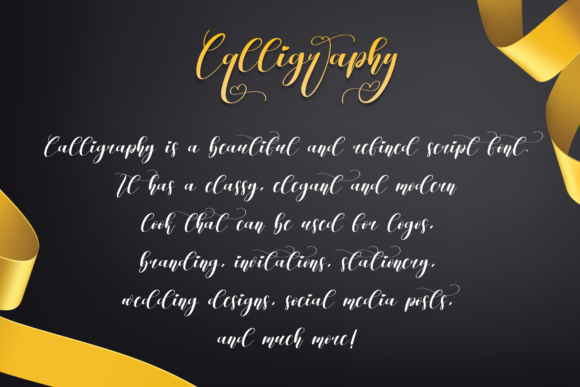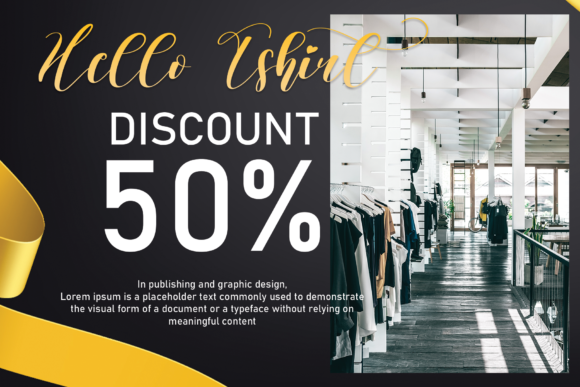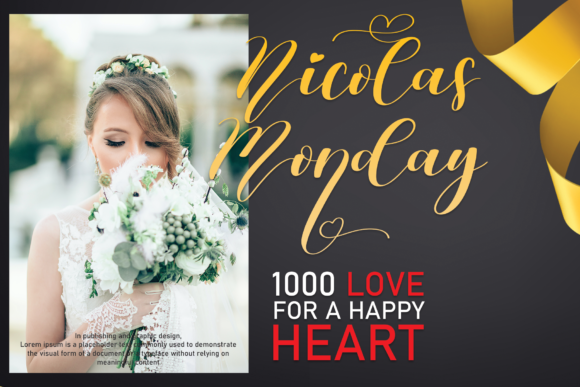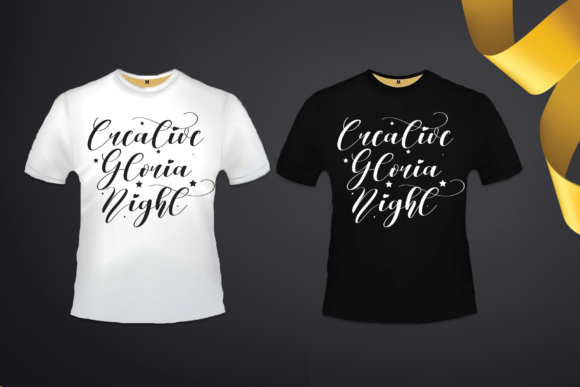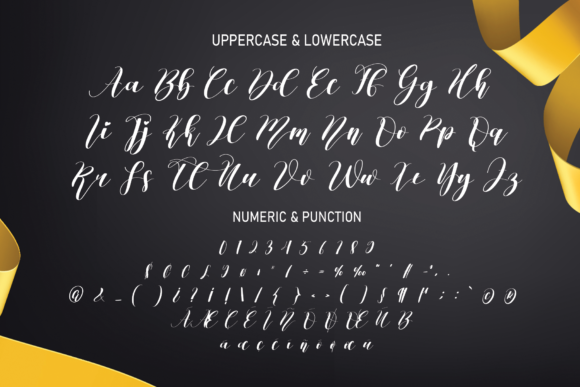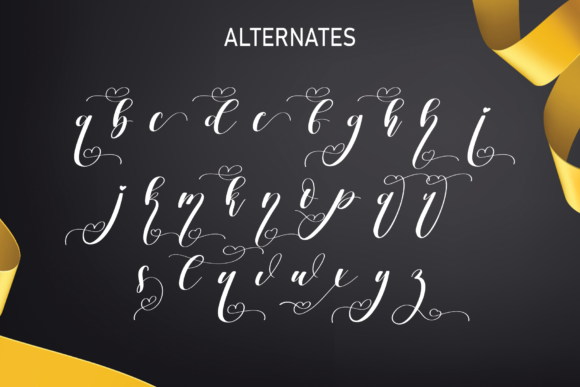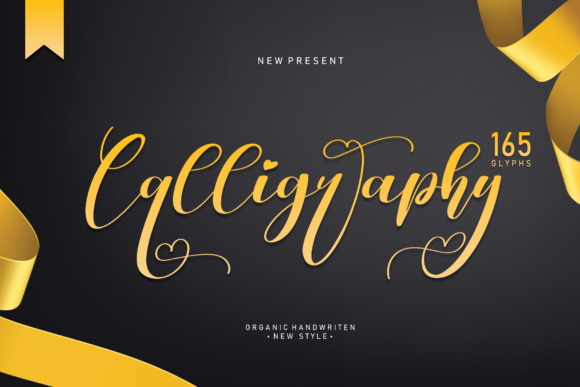
Elevate Your Designs with the Elegance of Calligraphy Font
Are you looking for a typeface that exudes romance, sweetness, and luxury? Look no further than the Calligraphy Font, a stunning script font that will add a touch of sophistication to any design project. With its flowing characters that dance along the baseline, this font is sure to captivate your audience and leave a lasting impression.
What is Calligraphy Font?
Calligraphy Font is a beautifully crafted typeface that mimics the art of traditional calligraphy. Each character is carefully designed to flow smoothly into the next, creating a sense of movement and fluidity. The result is a font that is both elegant and eye-catching, perfect for adding a touch of luxury to your designs.
Key Features of Calligraphy Font
So, what sets Calligraphy Font apart from other typefaces? Here are just a few of its key features:
- PUA Encoding: Calligraphy Font is PUA (Private Use Area) encoded, which means that you can access all of the amazing glyphs and ligatures with ease. This makes it simple to create beautiful, intricate designs that showcase the full range of the font’s capabilities.
- Ligatures and Glyphs: The font includes a wide range of ligatures and glyphs, allowing you to create complex and intricate designs. From flourishes and swashes to alternative characters and more, you’ll have everything you need to create stunning text-based designs.
- Romantic and Sweet: Calligraphy Font has a distinctly romantic and sweet feel, making it perfect for designs that require a touch of elegance and sophistication.
Uses for Calligraphy Font
So, what can you use Calligraphy Font for? The possibilities are endless! Here are just a few ideas to get you started:
- Wedding Designs: Calligraphy Font is perfect for wedding designs, including invitations, save-the-dates, and more. Its romantic and elegant feel makes it an ideal choice for couples looking to add a touch of sophistication to their wedding stationery.
- Branding and Packaging: The font’s luxurious feel makes it a great choice for branding and packaging designs. Use it to create eye-catching logos, labels, and more that will help your brand stand out.
- Signage and Displays: Calligraphy Font is also perfect for signage and display designs, including restaurant menus, storefront signs, and more. Its elegant feel will add a touch of sophistication to any display.
- Digital Designs: Finally, Calligraphy Font can be used in a wide range of digital designs, including social media graphics, website headers, and more. Its versatility makes it an ideal choice for designers who need a font that can adapt to different mediums.
Tips for Using Calligraphy Font
Here are a few tips for getting the most out of Calligraphy Font:
- Experiment with Ligatures: Don’t be afraid to experiment with the font’s ligatures and glyphs. These can add a touch of elegance and sophistication to your designs.
- Pair with Other Fonts: Calligraphy Font pairs well with a wide range of other fonts. Experiment with different combinations to find the perfect match for your design.
- Use for Headlines and Titles: The font’s elegant feel makes it perfect for headlines and titles. Use it to add a touch of sophistication to your text-based designs.
In conclusion, Calligraphy Font is a stunning script font that is sure to add a touch of luxury to any design project. With its flowing characters, PUA encoding, and wide range of ligatures and glyphs, it’s the perfect choice for designers who need a font that exudes elegance and sophistication. Whether you’re working on a wedding design, branding project, or digital display, Calligraphy Font is sure to impress.